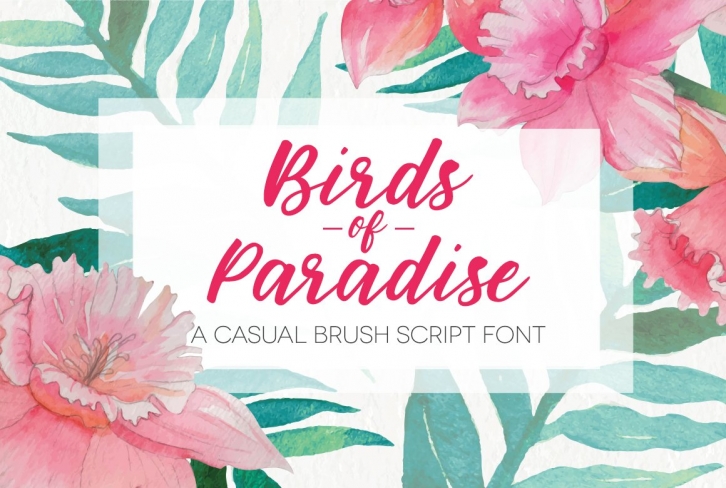
Birds of Paradise - A Casual Italic Brush Script
Birds of Paradise is a full script font, uppercase and lowercase are both in a brush script style. This font has multilingual support with accented characters for international (Western European, Central European and South Eastern European) users. There are a number of stylistic alternates and ligatures available through the glyphs palette in programs like Photoshop and Illustrator.
This font can be used in logos or longer form text as it is very readable and consistent.